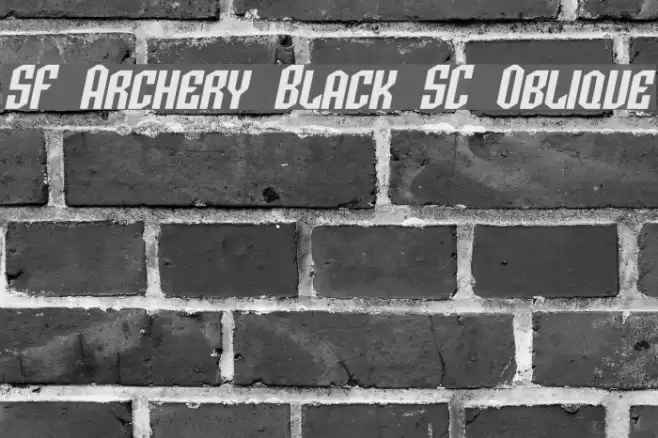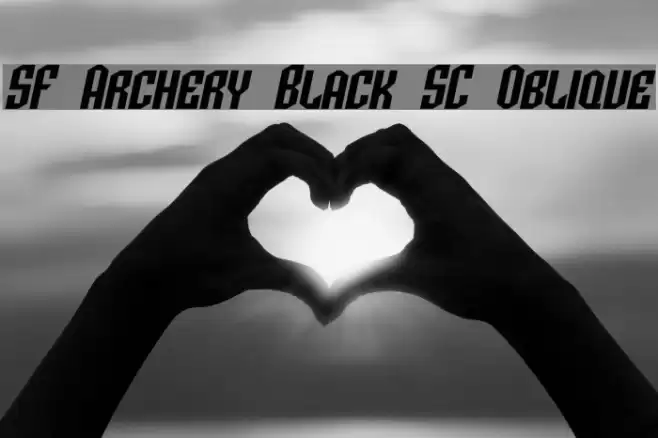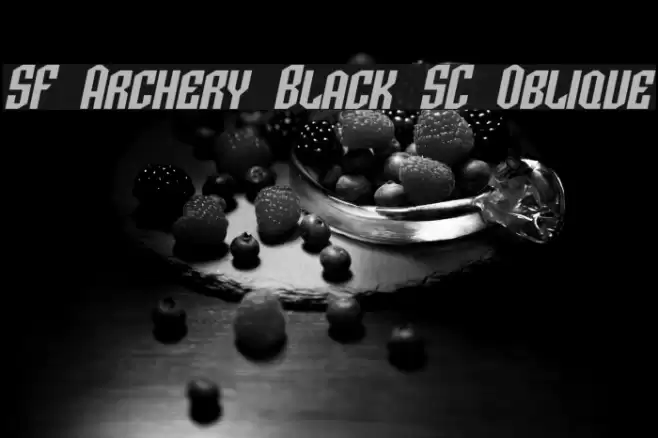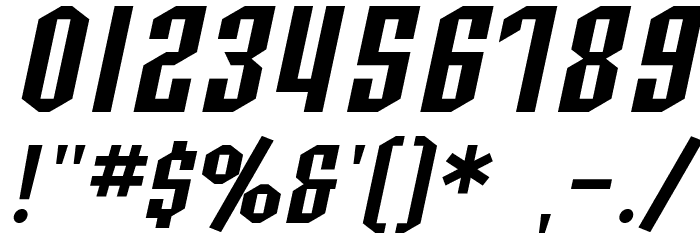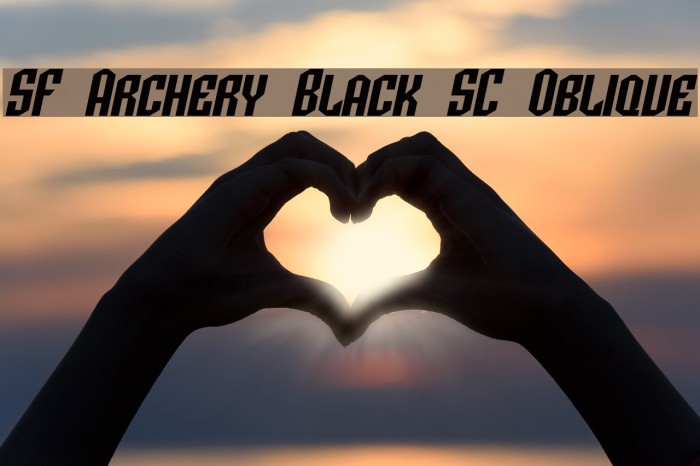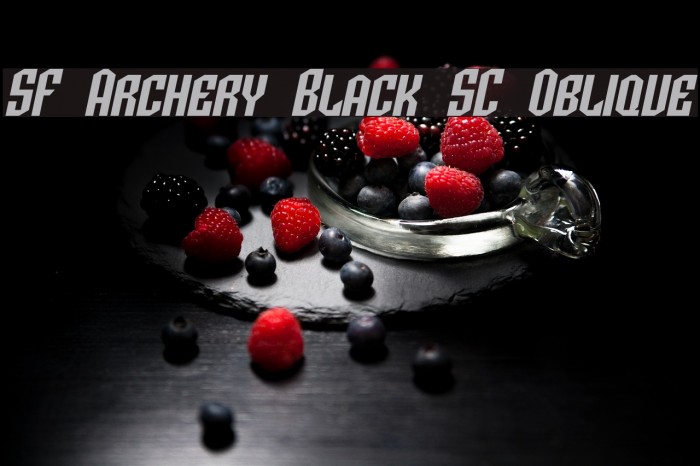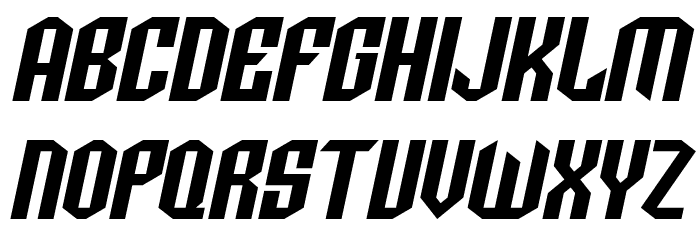
SF Archery Black SC Oblique Font
SF Archery Black SC Oblique Description
This font features a bold and dynamic style with a strong oblique slant, giving it a sense of motion and energy. The characters are blocky and angular, with sharp edges and a robust presence. The uppercase and lowercase letters maintain a consistent weight, emphasizing their boldness. Numbers and special characters are designed to match the assertive style, making them stand out prominently. This font is ideal for projects that require a striking and impactful visual impression.
A bold, oblique font with angular, dynamic characters from Gothic fonts.
- Proposed Projects: Ideal for sports branding, dynamic posters, and action-themed designs.